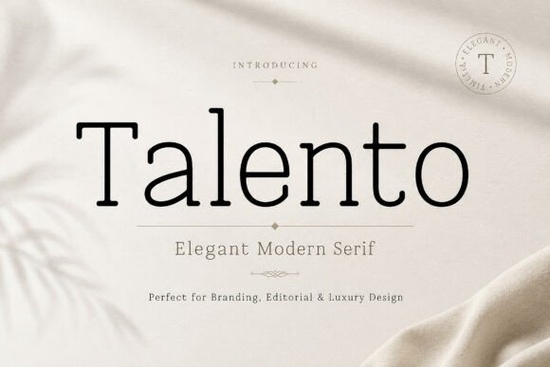
Talento Font is a versatile and stylish serif typeface that brings a sense of elegance and refinement to any design project. Whether you're working on a luxury brand, editorial layout, or fashion magazine, this font offers the perfect balance of sophistication and clarity. Its clean lines and refined curves make it ideal for creating high-end visual identities that stand out.
Designed with attention to detail, Talento includes uppercase and lowercase letters, numbers, punctuation, and symbols, making it suitable for a wide range of applications. From product packaging to social media templates, this font adds a touch of class without overwhelming the design. Its minimalist aesthetic ensures it works well in both digital and print formats.
If you're looking for a font that combines timeless beauty with modern simplicity, Talento is an excellent choice. It's particularly popular among designers who want to create polished typography compositions that feel both professional and approachable. The font’s balanced proportions and graceful spacing make it easy to work with, even in complex layouts.
What Makes Talento Stand Out?
Talento Font distinguishes itself through its ability to convey a premium feel without being overly ornate. Unlike some serif fonts that can feel heavy or outdated, Talento maintains a contemporary edge while still feeling classic. This makes it a go-to option for projects that require a sense of sophistication but also need to remain accessible.
The font is especially useful for branding and editorial work, where readability and visual appeal are key. It pairs well with other typefaces, allowing for creative combinations that enhance the overall design. Whether you're designing a book cover, a wedding invitation, or a home decor quote, Talento adds a level of polish that elevates the final result.
Best Uses for Talento Font
Talento Font is widely used across multiple industries and design disciplines. Here are some common applications:
- Luxury branding: Ideal for high-end logos and brand identities that need to feel exclusive and refined.
- Editorial design: Perfect for magazines, newspapers, and other publications that require a clean yet elegant look.
- Fashion and beauty: Great for packaging, advertisements, and promotional materials in the fashion and beauty sectors.
- Book covers and titles: Adds a sophisticated touch to literary projects and publishing endeavors.
- Social media templates: Enhances visual content with a professional and cohesive style.
Its adaptability means it can be used in both large-scale projects and smaller, more personal designs. The font’s versatility makes it a valuable addition to any designer’s toolkit.
Where to Find Similar Fonts
When choosing a font, it's important to consider how it will fit into your overall design strategy. Talento Font is a strong option for anyone looking to add a touch of class and modernity to their work. Its clean lines and refined appearance make it a reliable choice for a variety of projects.
Before finalizing your design, take time to test the font in different contexts. This will help ensure it meets your specific needs and enhances the visual impact of your work. Whether you're a professional designer or a creative hobbyist, Talento Font offers a powerful way to elevate your typography.
Consider adding Talento Font to your collection if you're looking for a versatile, elegant, and easy-to-use serif typeface. Its combination of style and functionality makes it a valuable asset for any design project.
As you explore the possibilities with Talento Font, remember that the right typeface can make a significant difference in how your work is perceived. Take advantage of its features to create designs that feel both professional and visually appealing.
Whether you're working on a small project or a large-scale campaign, Talento Font provides the tools needed to achieve a polished and sophisticated look. Its adaptability and aesthetic appeal make it a top choice for designers who value quality and style.
Start experimenting with Talento Font today and see how it can transform your design work. With its refined curves and clean lines, this font is sure to become a staple in your creative process.